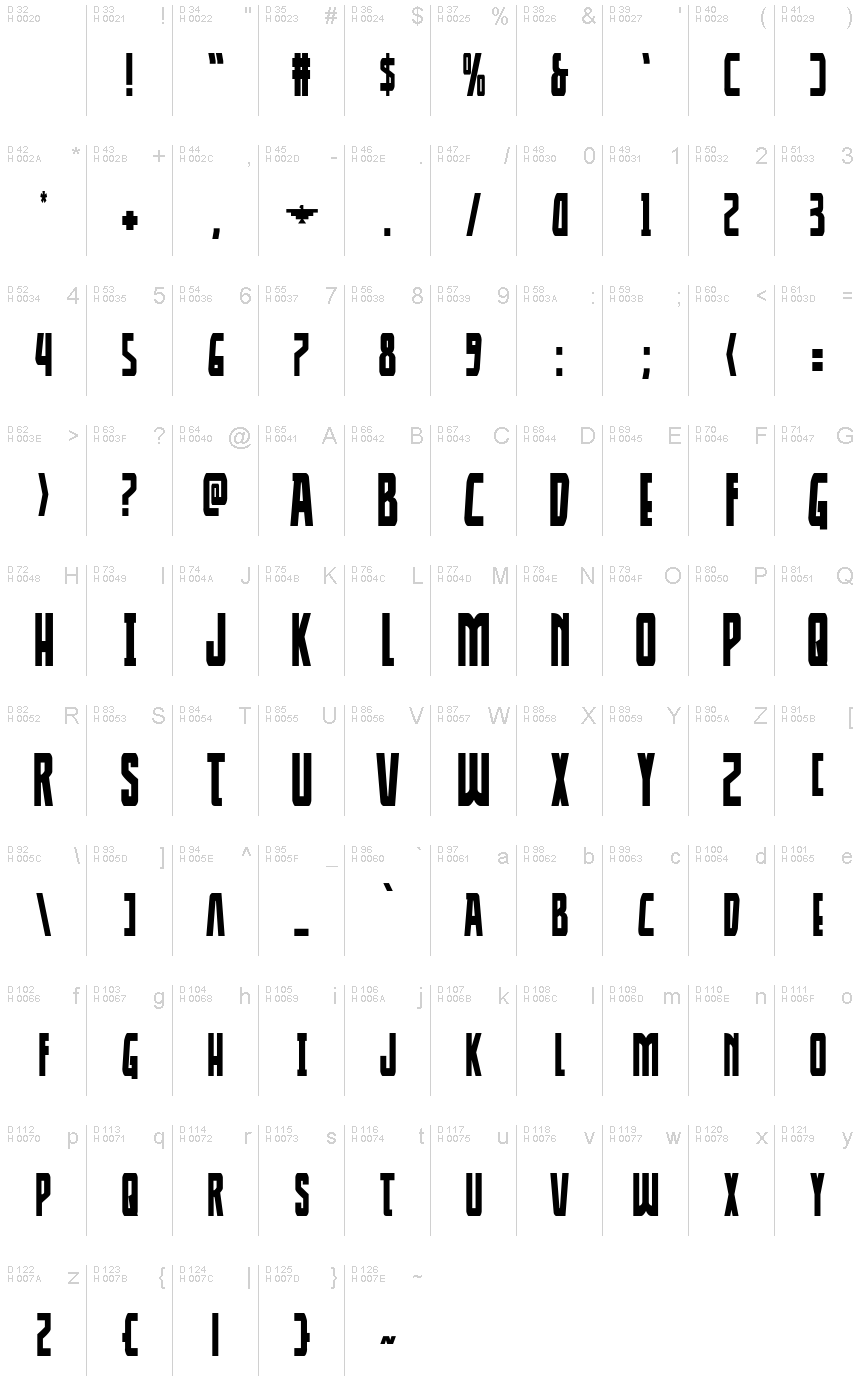
Thunder-Hawk Drop Condensed by Daniel Zadorozny of Iconian Fonts is a free distorted display font with towering, tightly compressed letters. Broad, dense strokes dominate the design, broken by abrupt inward cuts and narrow openings that make the forms look squeezed and slightly unstable. The uneven widths keep the row from settling into a uniform mechanical pattern.
Concert posters are its strongest setting, especially for aggressive rock, industrial, or experimental music. It also suits streetwear graphics, festival merchandise, and action-game title screens. The pinched gaps and sliced contours can echo torn paper, speaker stacks, and hard-edged game artwork, turning the lettering into part of the image.